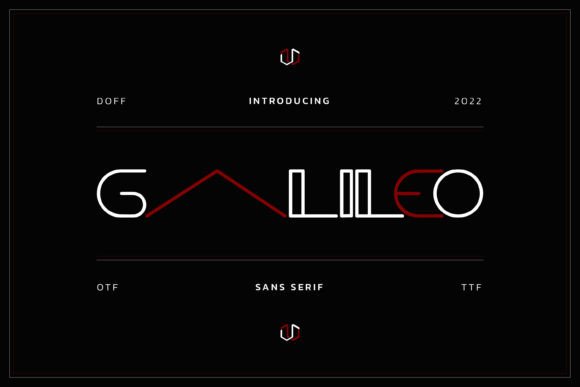
Unleash the beauty of lettering with Galileo Font, the captivating sans serif that ignites imaginations with its sophisticated strokes. This font is the brainchild of inferno.type3, a visionary foundry renowned for crafting impeccable typefaces. Meet Galileo Font, a masterpiece that echoes the timeless allure of classic typography while maintaining a fresh, modern spirit.
Immerse yourself in the realm of creativity as you discover the endless possibilities that Galileo Font presents. With its impeccable curves and striking legibility, this font exudes an air of sophistication that is sure to leave a lasting impression. Whether you're a seasoned designer or just starting, Galileo Font is the perfect companion for your creative endeavors.
Imagine your designs taking center stage, radiating with a captivating charm that draws the eye and sparks conversations. From logos that command attention to posters that captivate, Galileo Font will elevate your projects to new heights, leaving a trail of admiration in its wake.